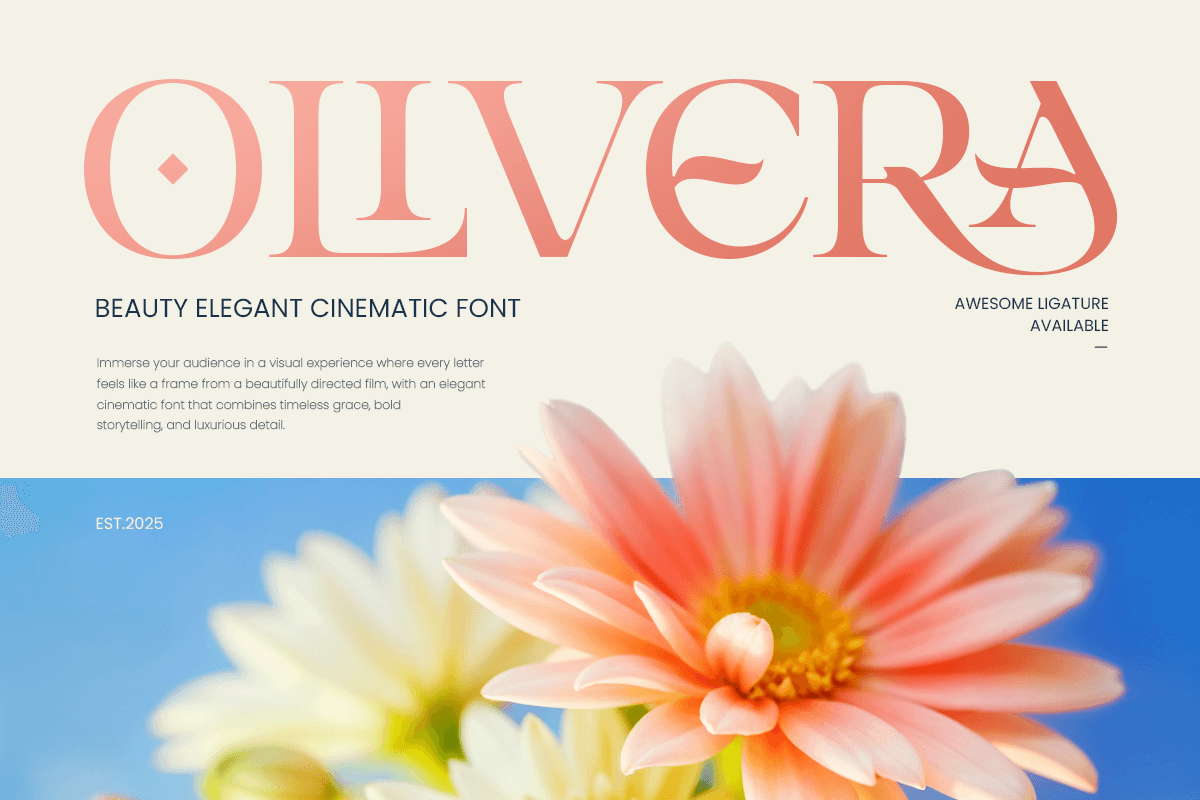
Olivera
-Beauty Elegant Cinematic Font
Olivera - Beauty Elegant Cinematic Font
Olivera blends classic elegance with cinematic charm, offering soft curves, high contrast strokes, and graceful ligatures. It’s designed for beauty brands, luxury packaging, wedding stationery, magazine headlines, and cinematic visuals that need to feel timeless and polished. Each character in Olivera is carefully crafted to add sophistication and style to your project.
Whether you're designing a logo, creating a brand identity, or crafting editorial content, Olivera brings harmony and visual appeal with every letter. Its refined presence and fashionable aesthetic make it the perfect serif choice for upscale designs.
Let Olivera add a touch of beauty and cinematic flair to your creative journey.
Olivera Beauty Elegant Cinematic Font Features:
• Elegant Serif with Stylish Ligatures
• Ideal for Beauty, Fashion, Editorial, and Luxury Branding
• Punctuation, Numbers, and Symbols